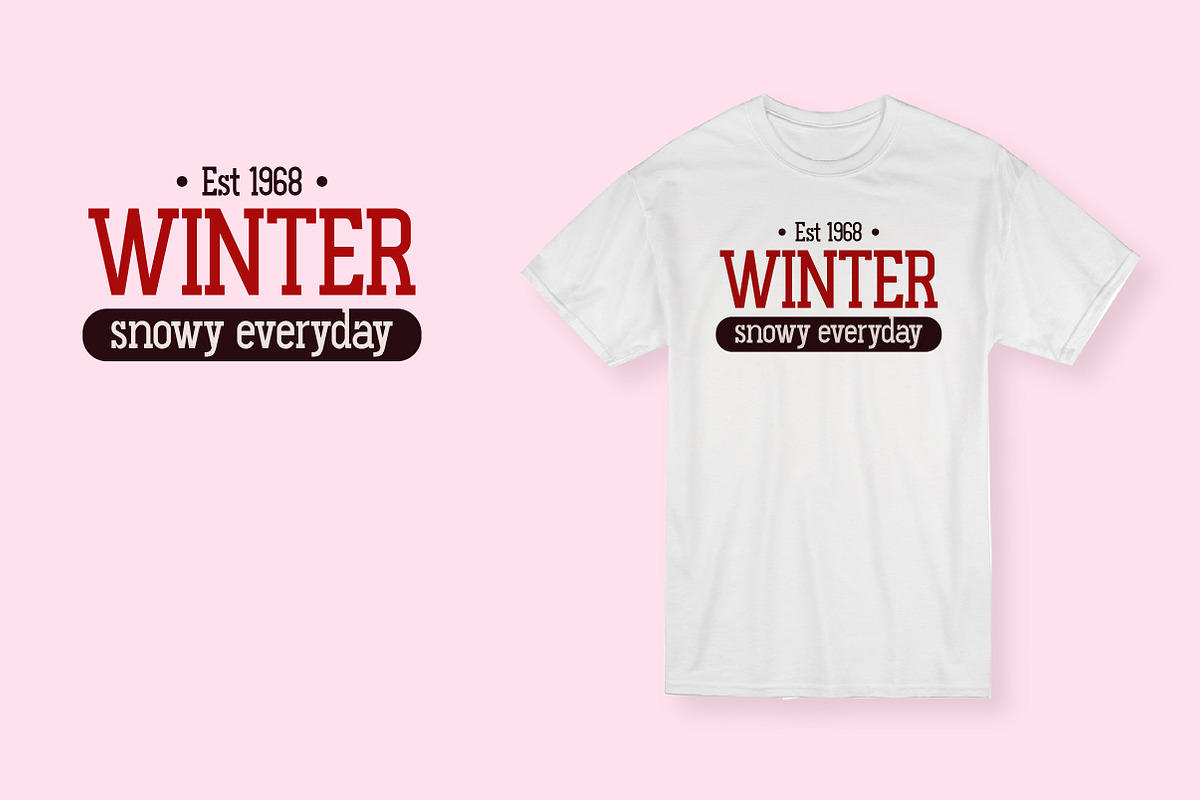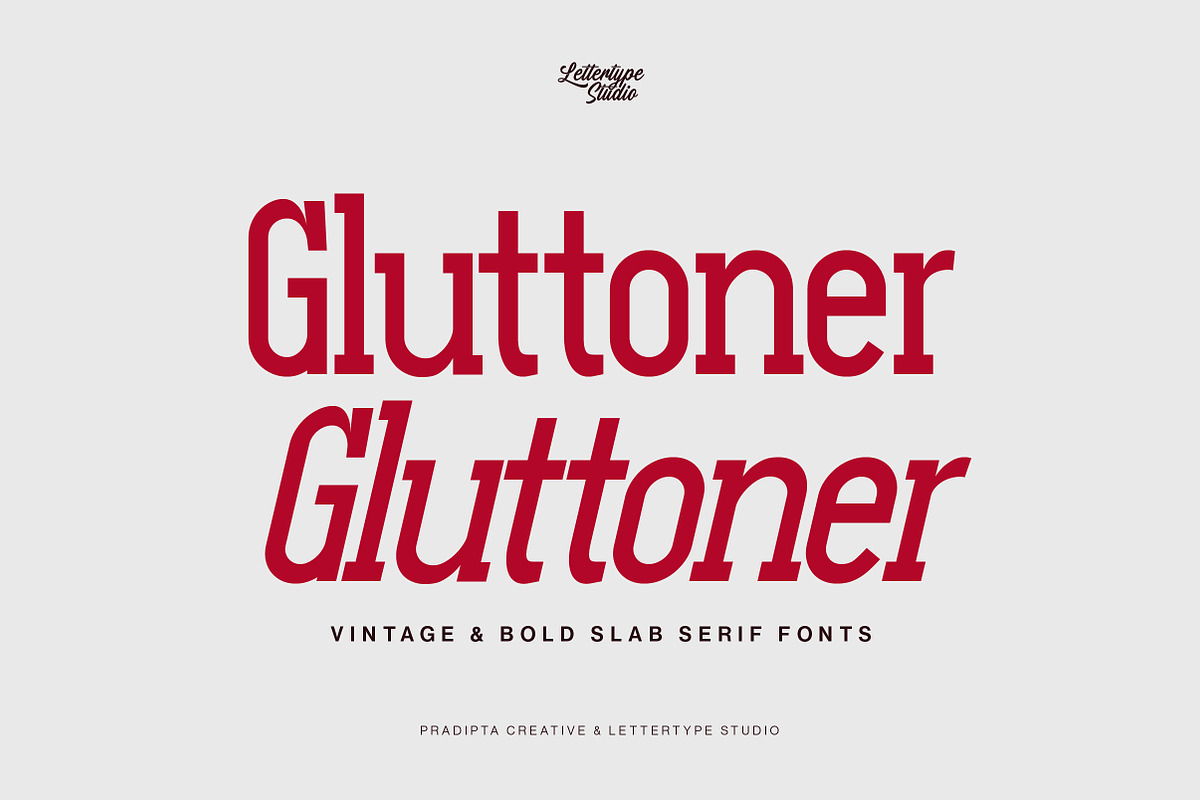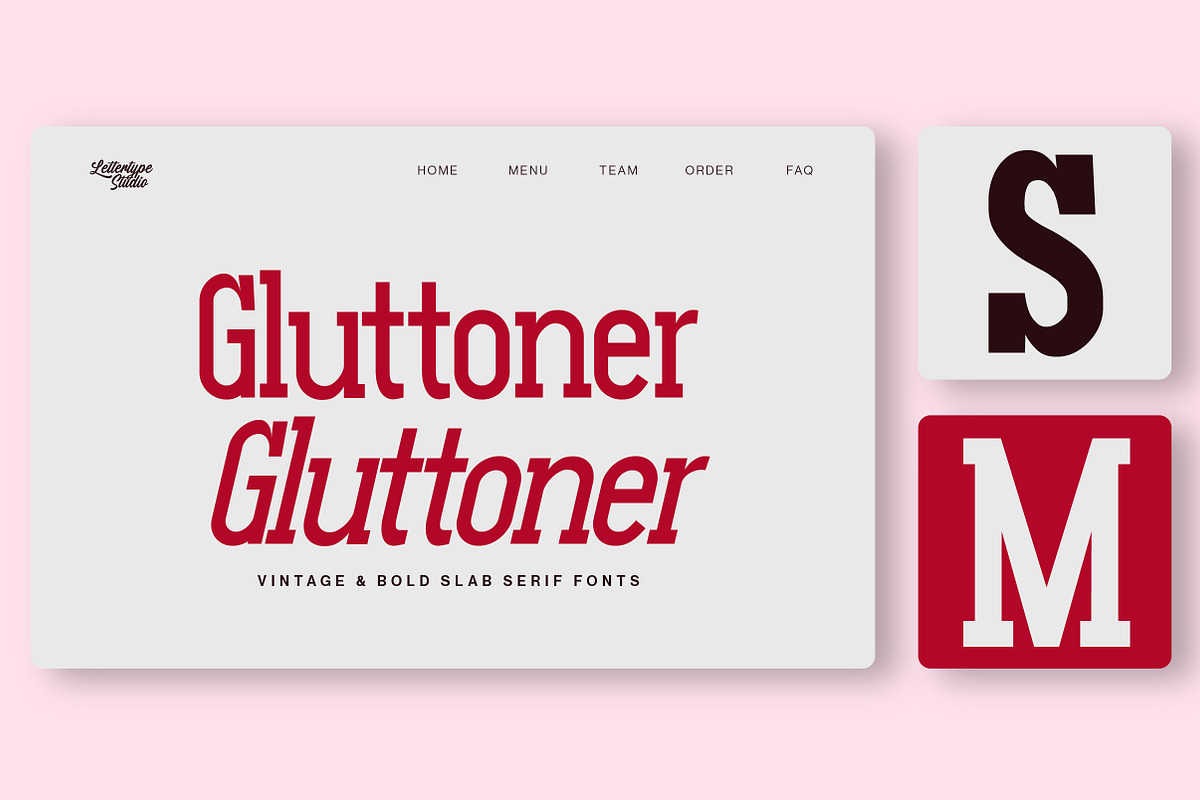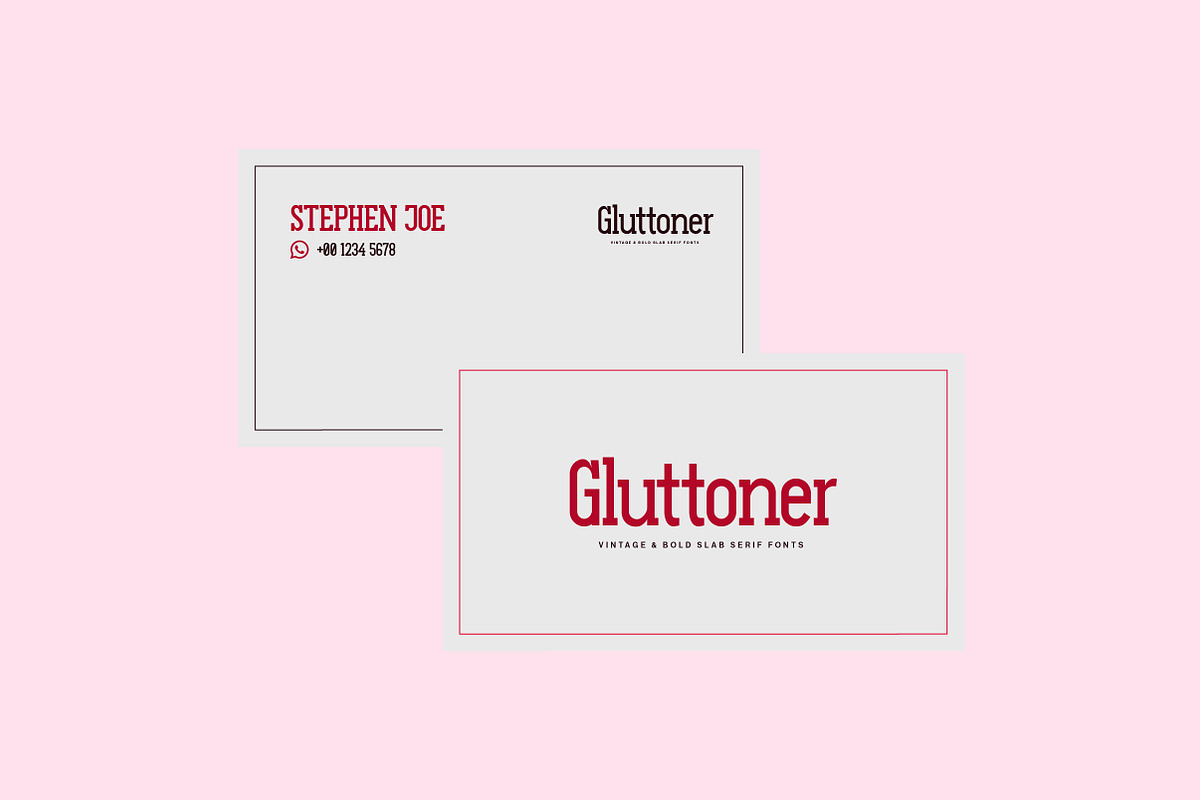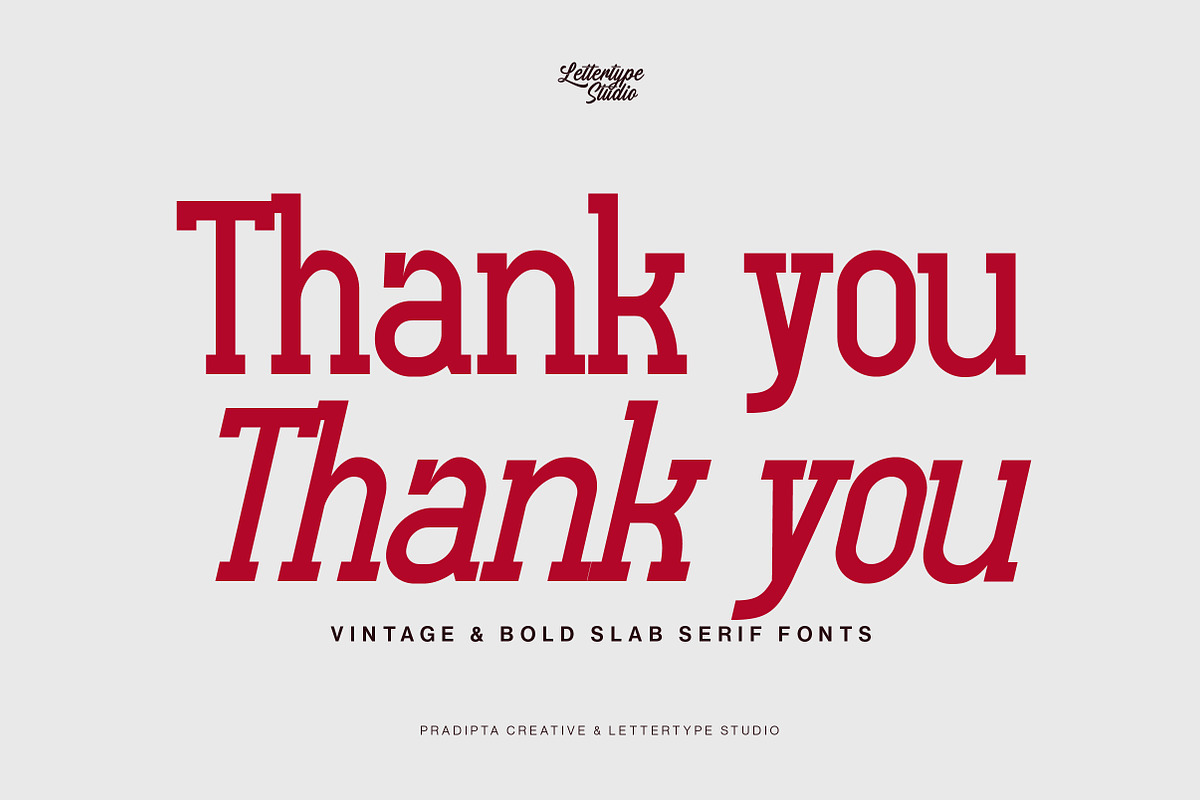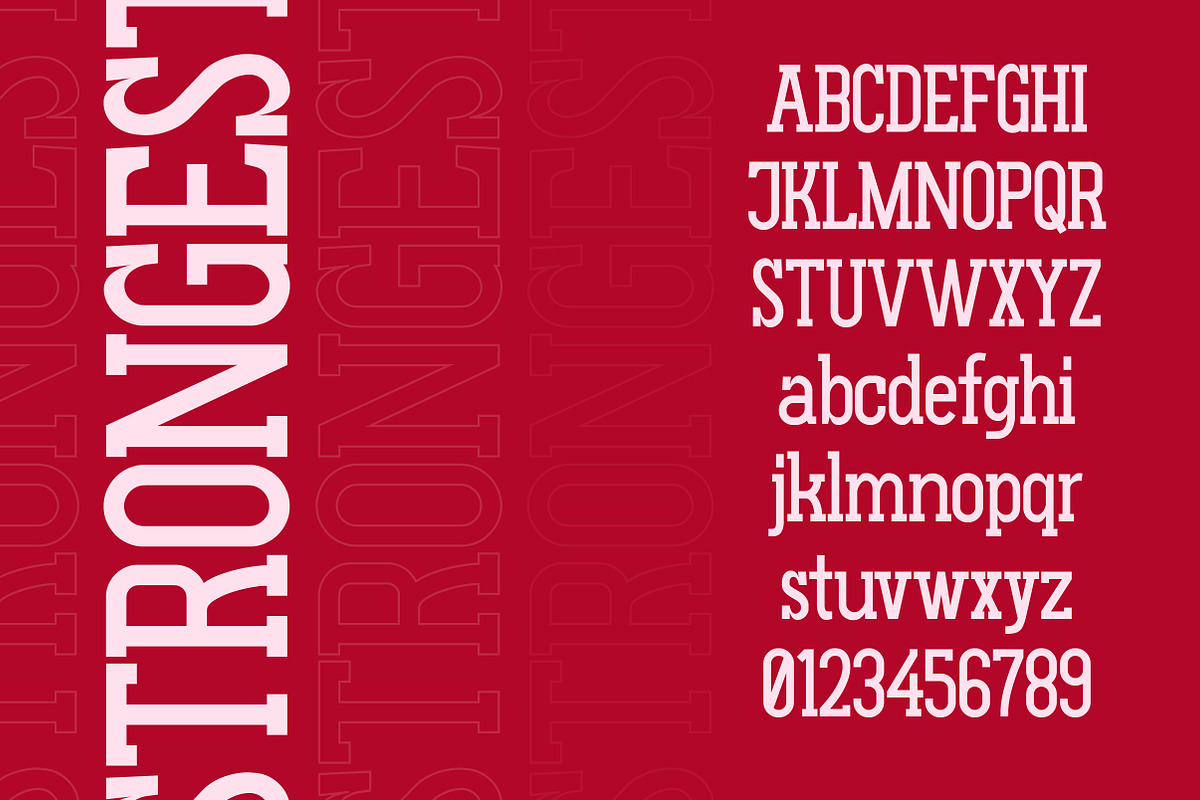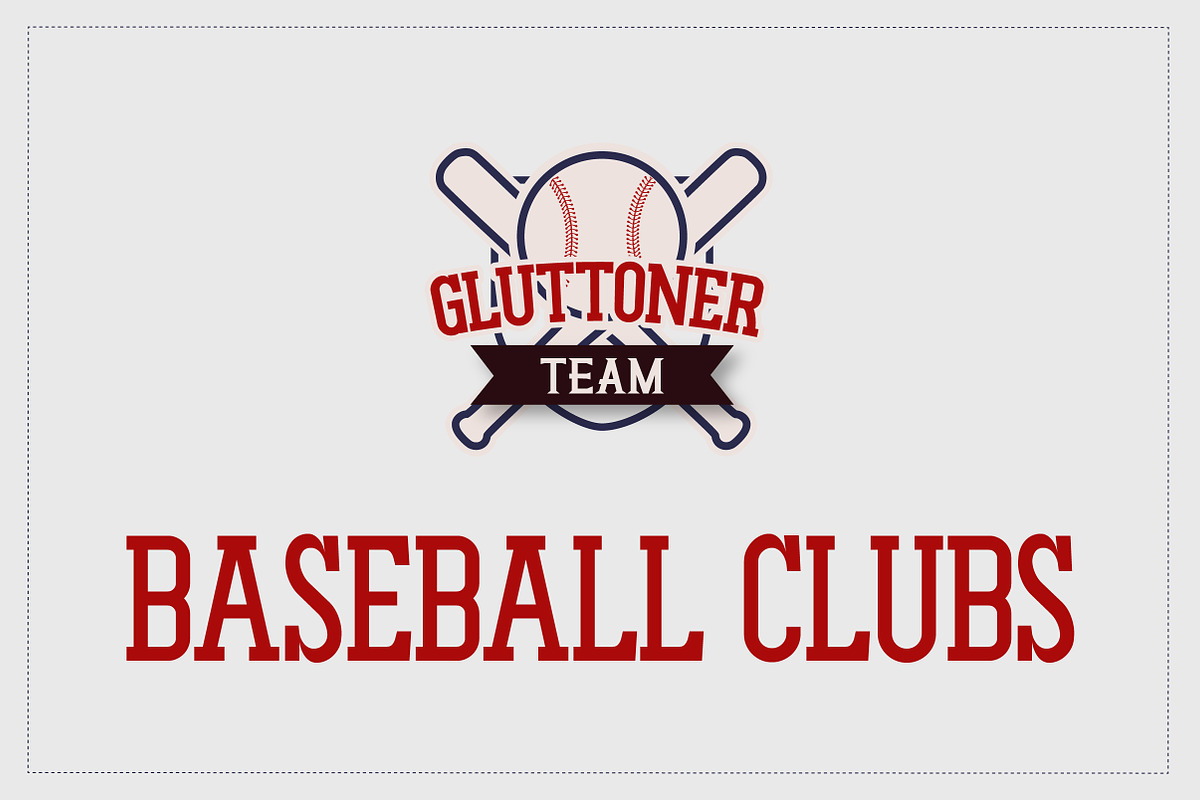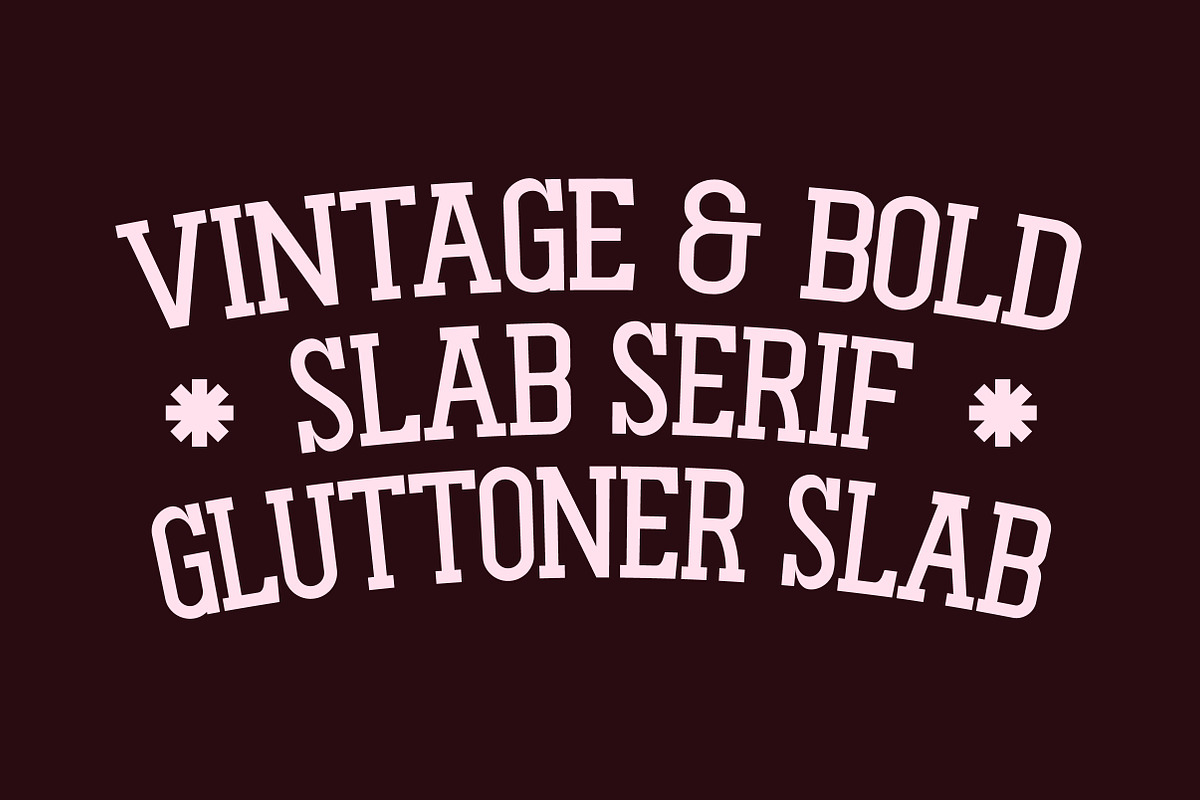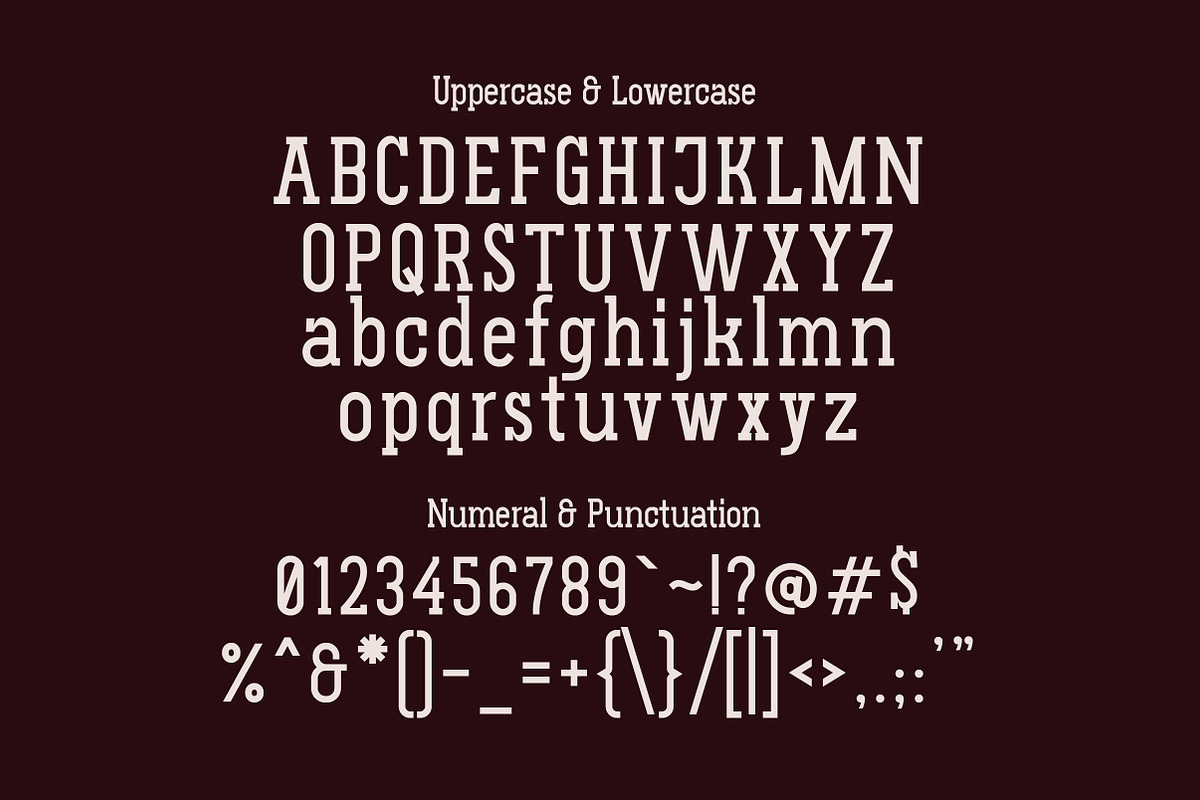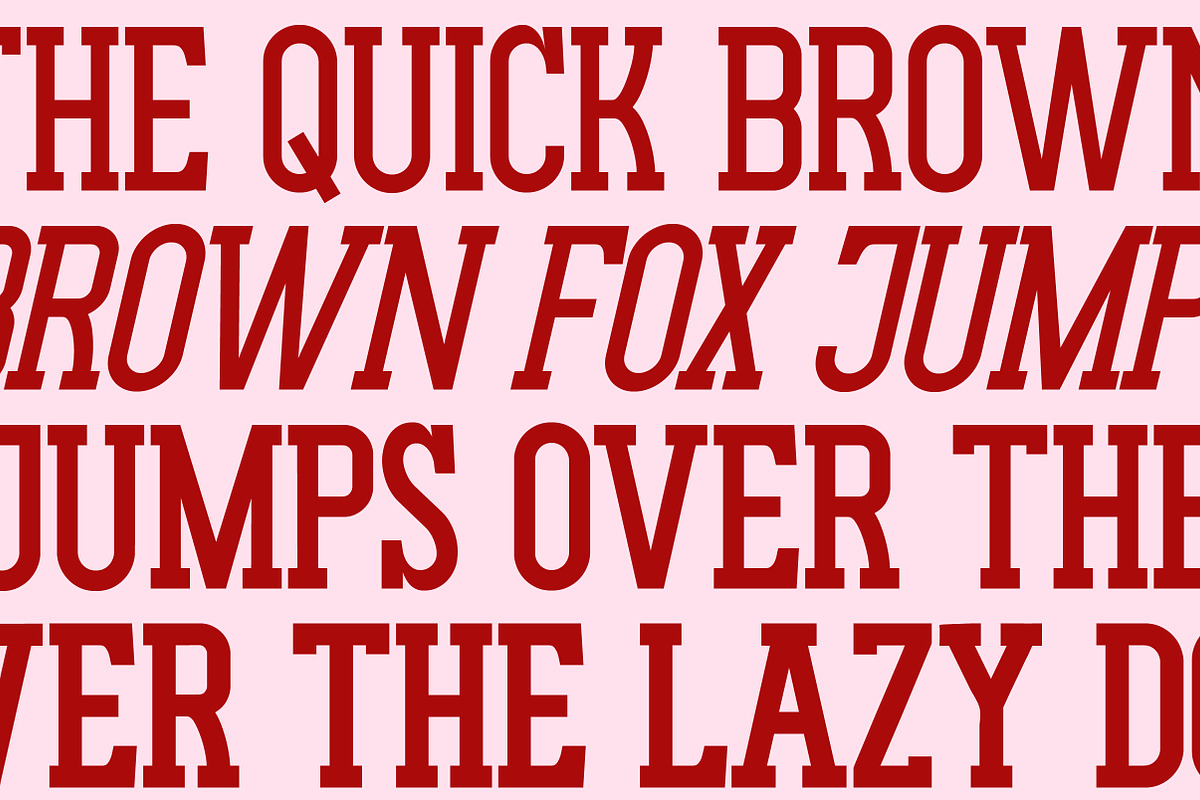
Gluttoner Vintage & Bold Slab Serif
Gluttoner Slab is a vintage & bold slab serif font inspired by urban culture with strong characters. Welcome to the new bold world slab serif characters, that fonts will help for any of your projects.
This font will be perfect for your logo design, branding, clothing, sports graphics, posters, editorial titles, headlines, etc.
Gluttoner Slab Comes With:
Lowercase, Uppercase, and Ligatures
Accented Characters
Font Family (Regular, Italic, Bold, Bold Italic, ExtraBold, and ExtraBold Italic)
Multiple Languages Supported